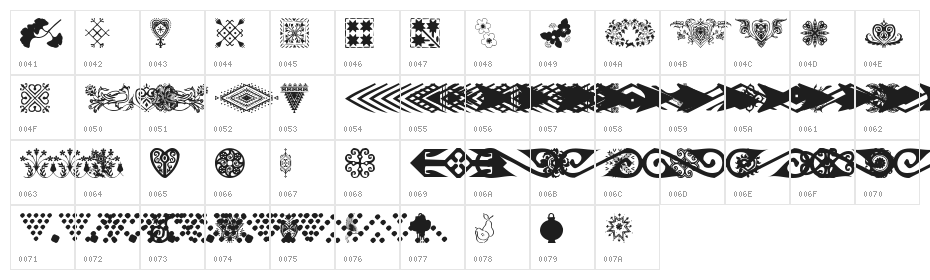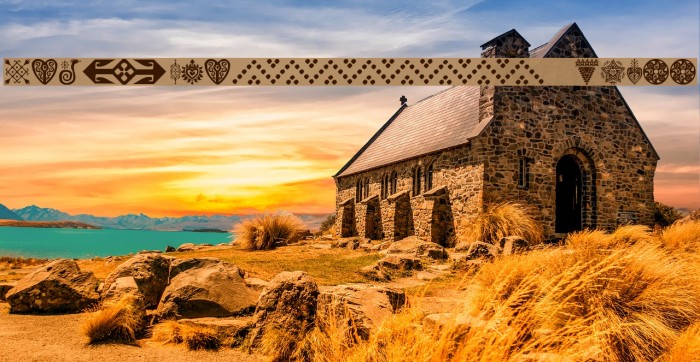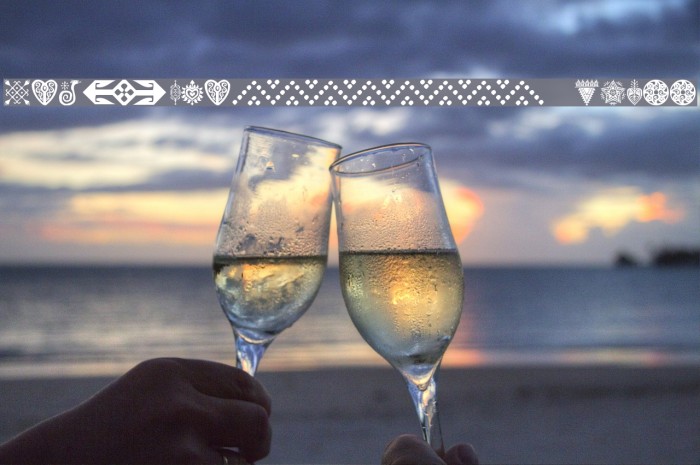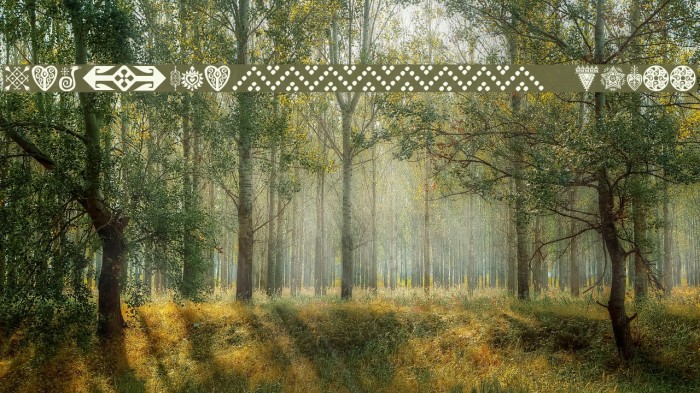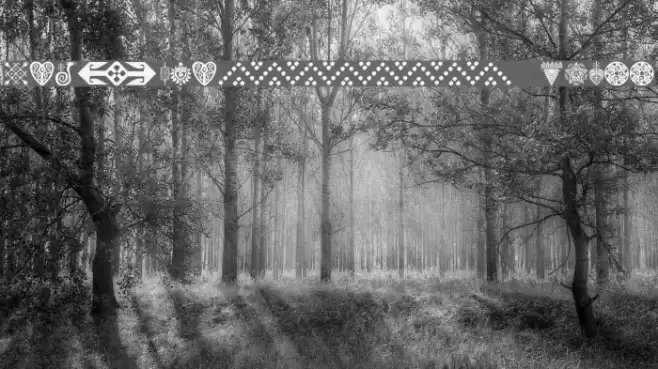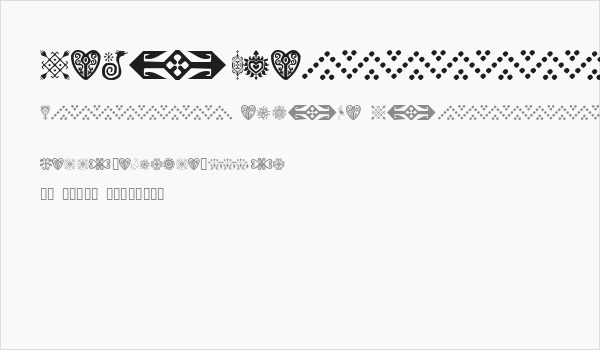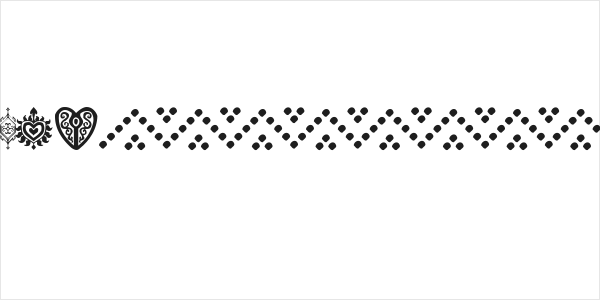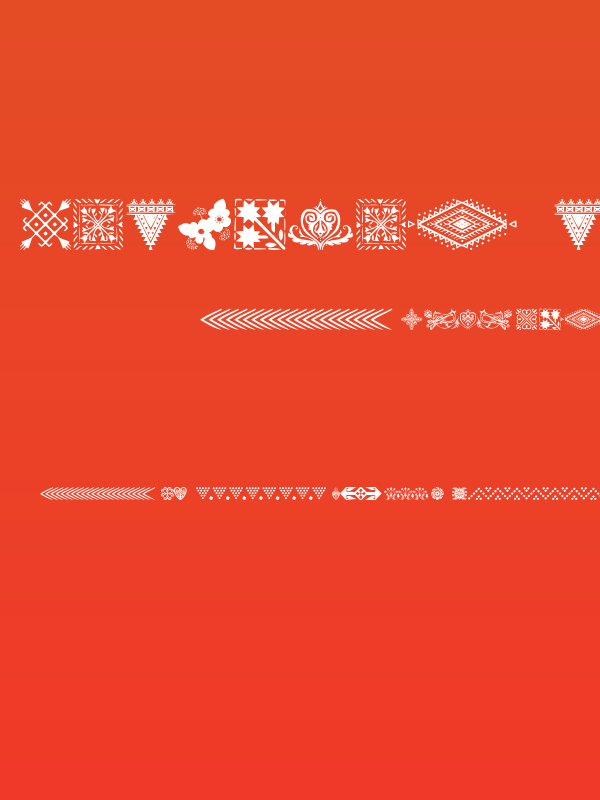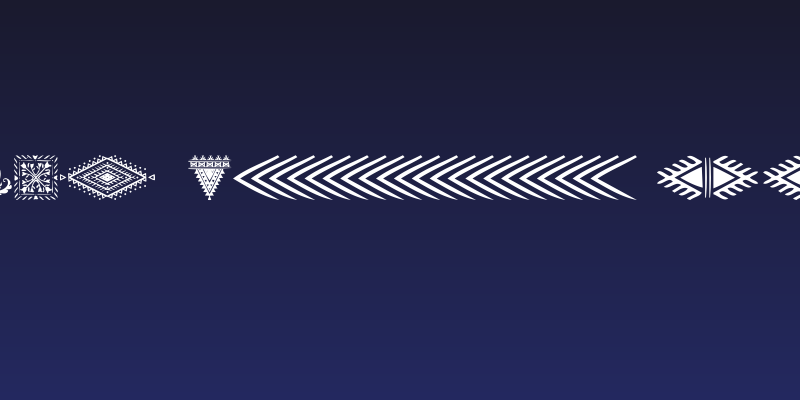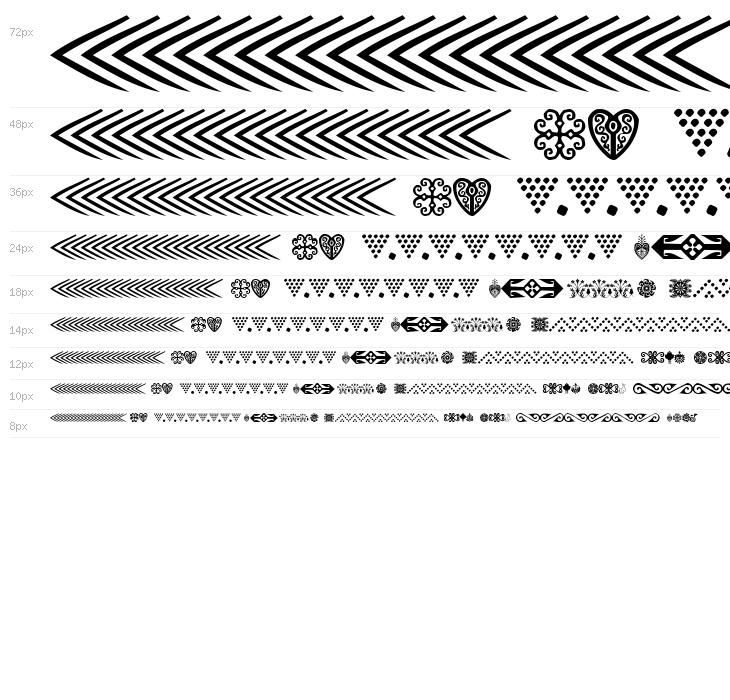
Designer Stuff Font
Designer Stuff Description
A decorative dingbat and border font featuring a variety of ornamental motifs, floral elements, geometric patterns, and stylized dividers. The glyphs are highly detailed and designed for embellishment rather than text, with some symbols resembling folk art or vintage decor.
| Overall Style | Decorative, Vintage, Ornamental |
| Use Case | Borders, embellishments, dividers, decorative accents |
| Proposed Projects | Invitations, certificates, scrapbooking, decorative borders, vintage-themed designs, and embellishments. |